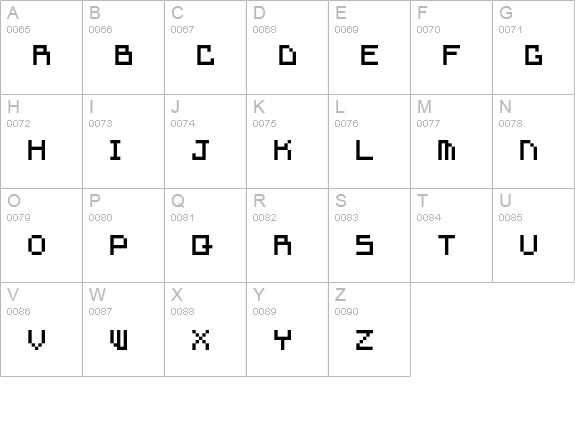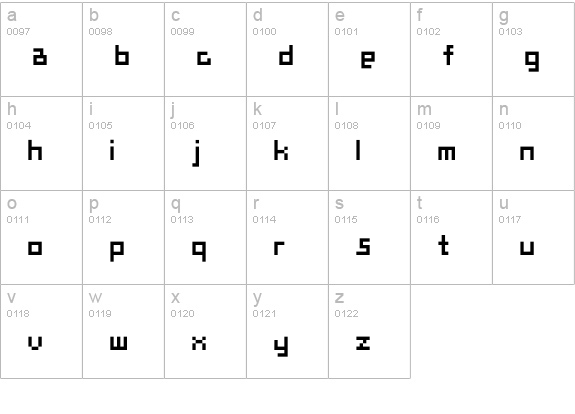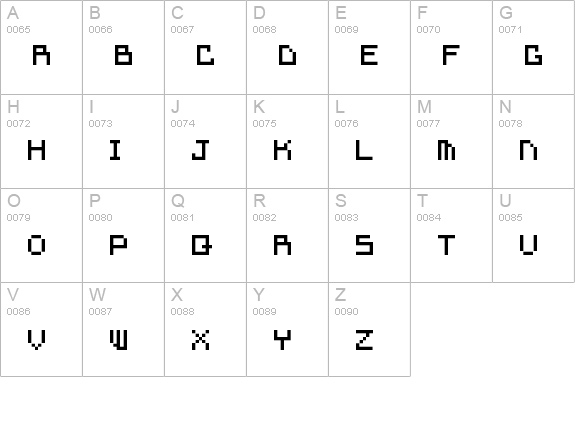
nontoxic_ggoggo Font Details
Introducing nontoxic_ggoggo font, a visually appealing and versatile typeface that adds a touch of creativity to any design project. This unique font features a modern and stylish aesthetic that is sure to make your text stand out. With its clean lines and distinctive characters, nontoxic_ggoggo font is perfect for a wide range of applications, from branding to editorial design. What sets nontoxic_ggoggo font apart is its versatility and readability, making it suitable for both print and digital projects. Whether you're designing a logo, creating a poster, or crafting a website, this font will help you achieve a polished and professional look. Best of all, nontoxic_ggoggo font is completely free to download at FontsMarket.com. So why wait? Add this stunning font to your collection today and elevate your designs to the next level!